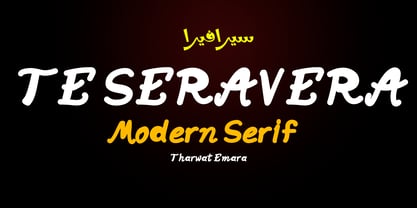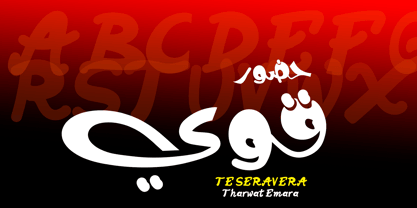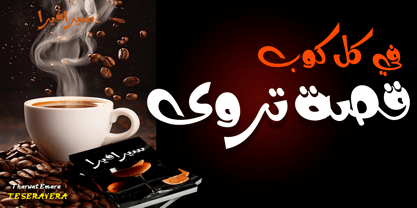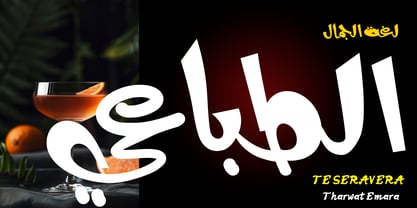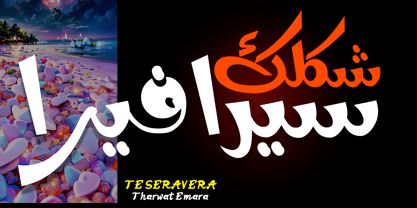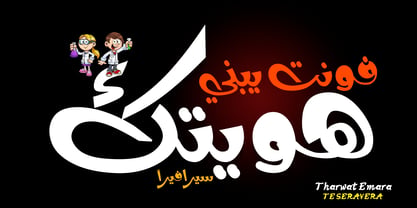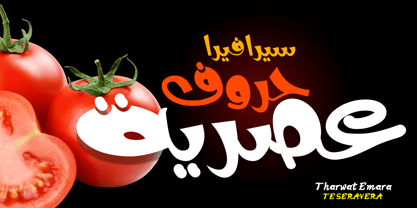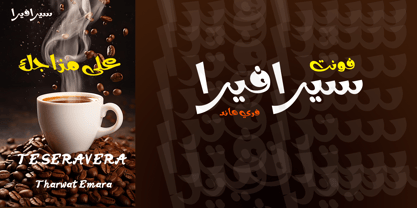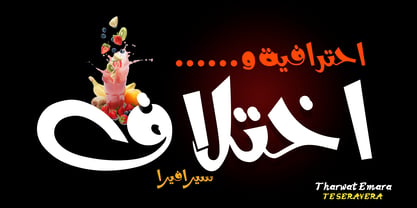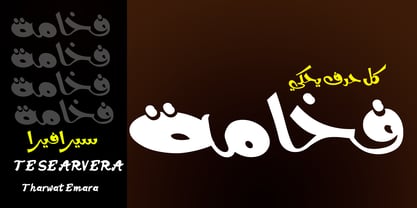
TE Seravera TharwatEmara
von Tharwat Emara
Die Schriftfamilie TE Seravera TharwatEmara wurde von Tharwat Mohamed Emara entworfen und von Tharwat Emara veröffentlicht. TE Seravera TharwatEmara enthält 1 Stile. Mehr über diese Familie
Seravera is a contemporary bilingual typeface that masterfully bridges the elegance of Arabic letterforms with the sleekness of modern Latin typography, achieving a perfectly balanced visual harmony. Meticulously crafted in a single, refined weight, it exudes a minimalist yet sophisticated aesthetic. This makes Seravera the ultimate choice for high-end branding, comprehensive visual identity systems, editorial design, premium packaging, and impactful digital campaigns.
​The Arabic character set is defined by its fluid continuity, meticulously calculated proportions, and exquisite detailing, offering a highly legible yet distinctive typographic personality. Its Latin counterpart has been engineered with precision to mirror the Arabic's rhythmic tone, guaranteeing seamless visual consistency across complex multilingual layouts. Whether in print or on-screen, Seravera delivers an effortlessly cohesive reading experience.
​For designers and art directors seeking a functional, stylish, and premium display typeface, Seravera stands as a testament to global, contemporary design—effortlessly uniting Arabic and Latin typographic traditions.
​Key Features:
​Comprehensive Bilingual Support: Seamless integration of Arabic and Latin scripts.
​Refined Display Weight: A single, exquisitely crafted weight balancing precision and luxury.
​Visual Harmony: Expertly engineered for absolute consistency across multilingual layouts.
​Contemporary Aesthetic: A clean, minimalist, and highly sophisticated typographic presence.
​Versatile Application: Purpose-built for premium branding, headlines, and large display uses.
​Cross-Media Optimization: Flawlessly rendered for both high-resolution print and digital environments.
Designer: Tharwat Mohamed Emara
Foundry: Tharwat Emara